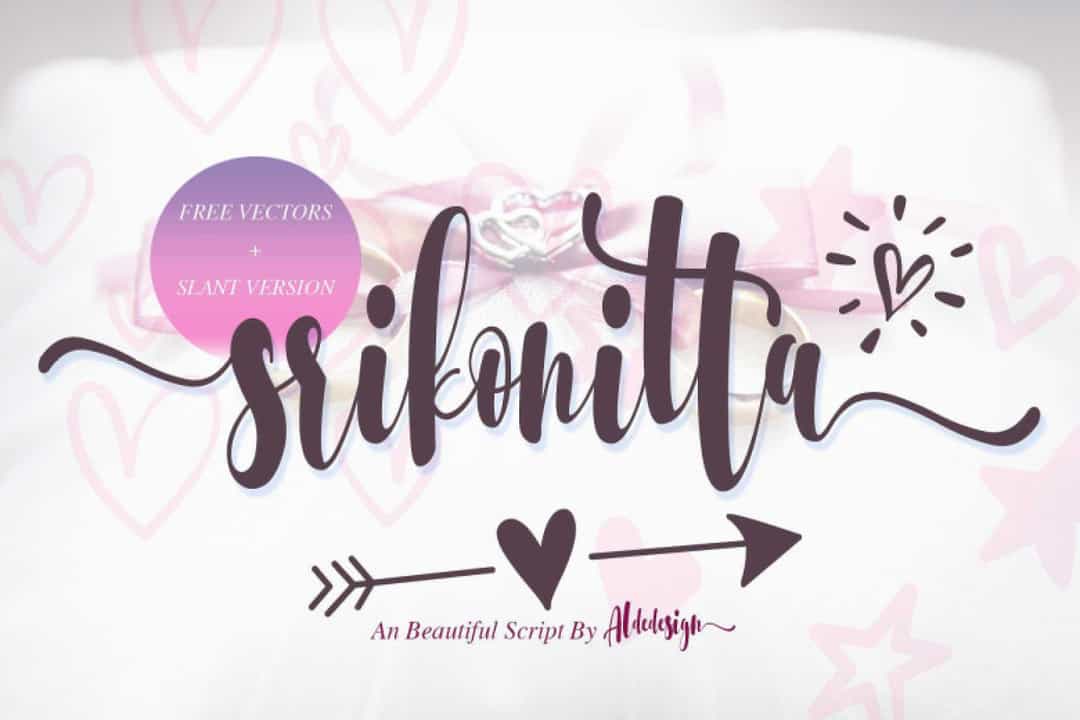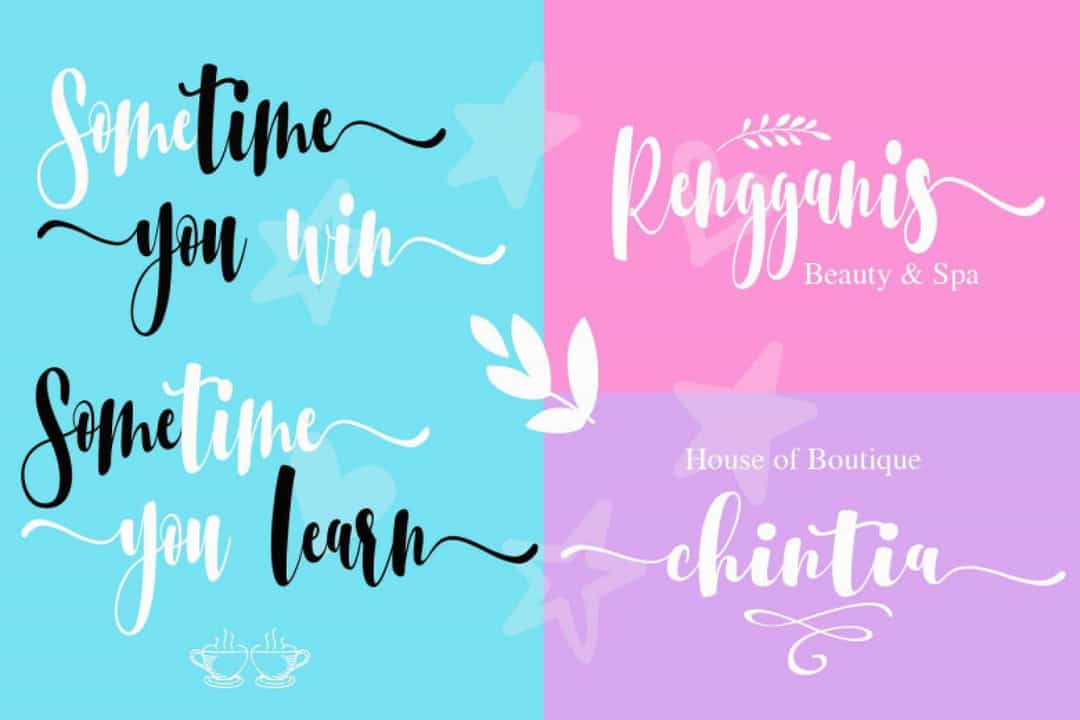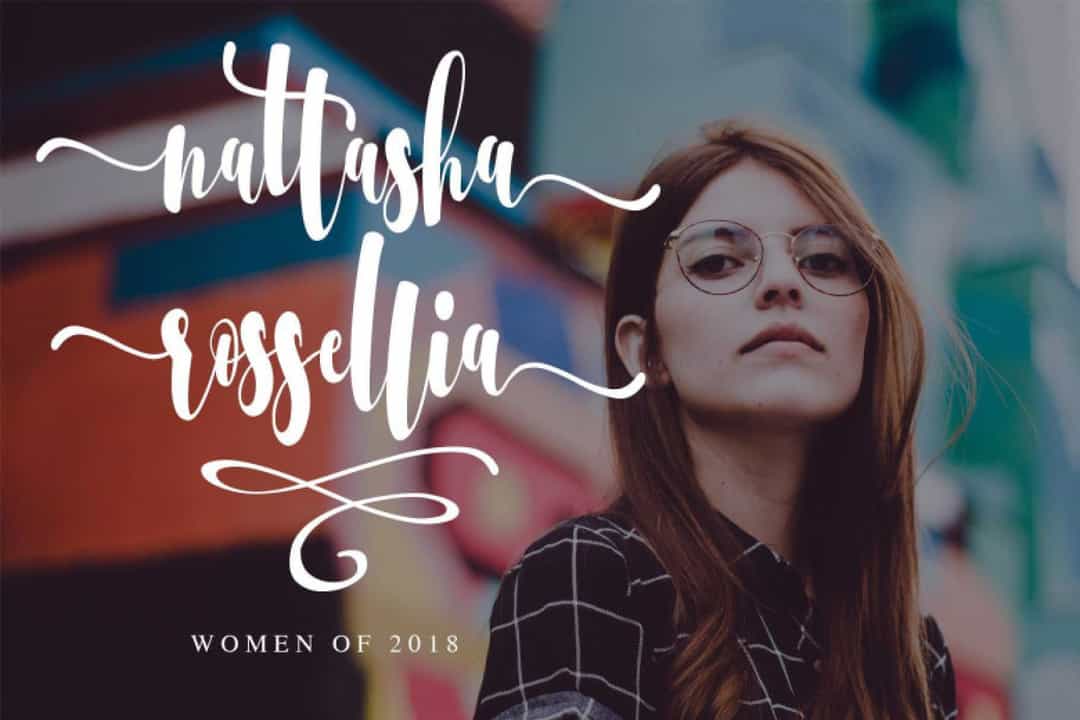
Discover Srikonitta Script Font, part of the Brush collection—a versatile and unique font perfect for adding a personal touch to your projects. Download it for free and enjoy crafting designs with style, from invitations to social media posts. This font is available exclusively for personal use, giving you the freedom to create without limits. Unlock your creativity with Srikonitta Script Font today!
Srikonitta is beautiful script made by depth love is a very fine writing done with a lot of love and deep feelings. Srikonitta with natural handwriting touch it is relevant for Headline, Apparel, Invitation, Branding, Wedding, Logo Design, Lettering, Logotype, Clothing, Poster, Magazine, and other design project.